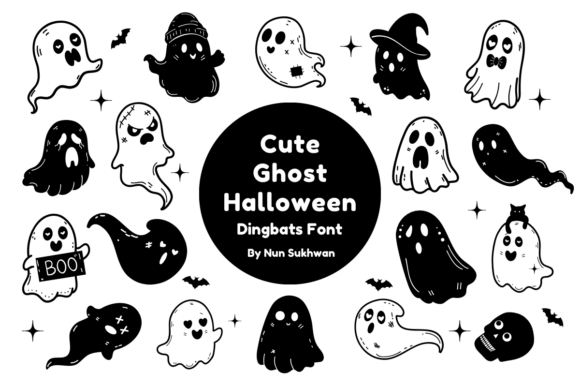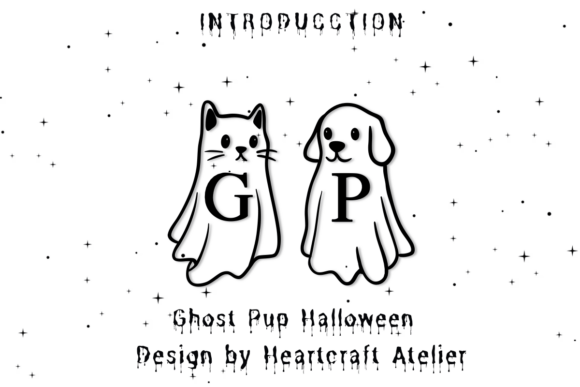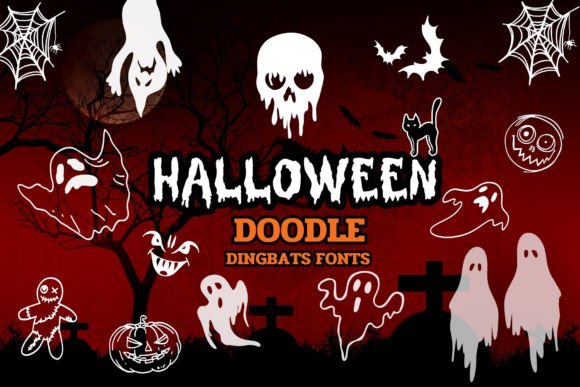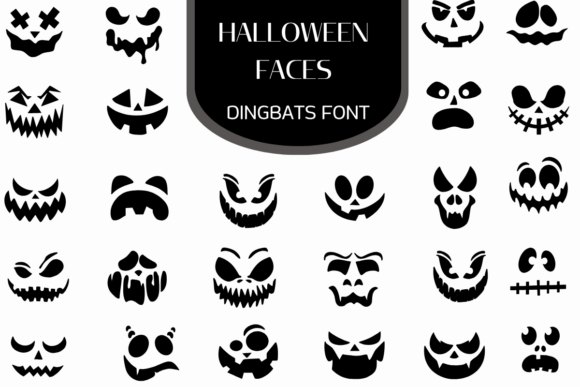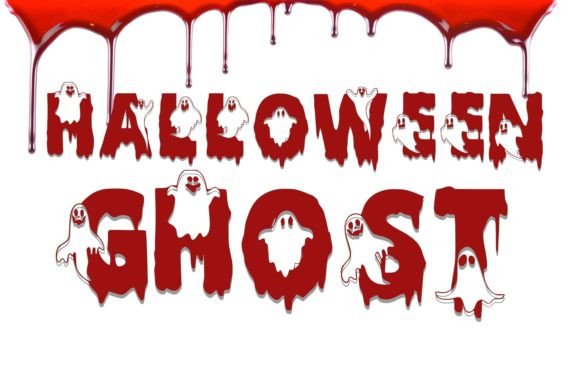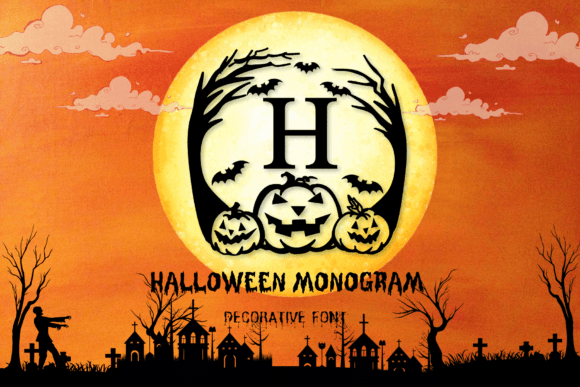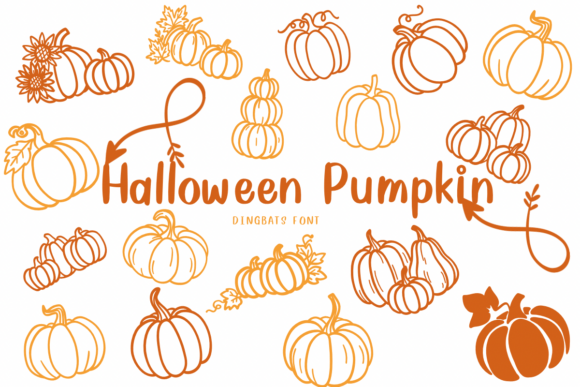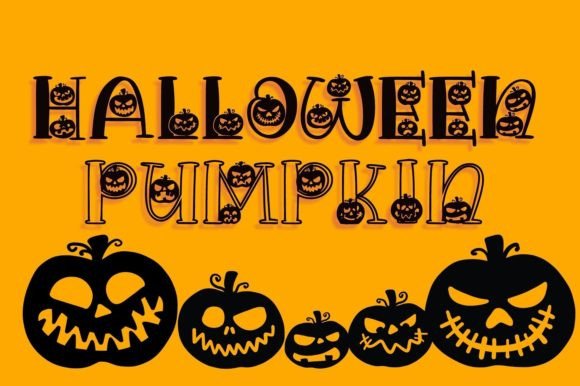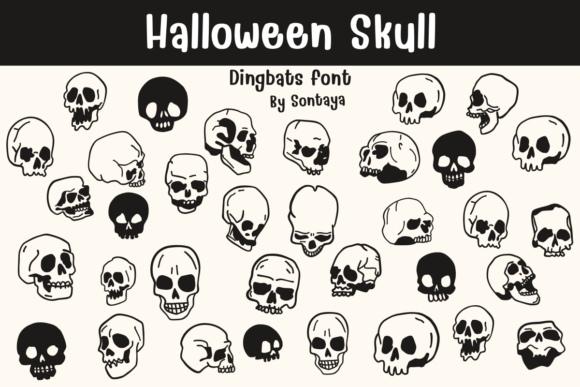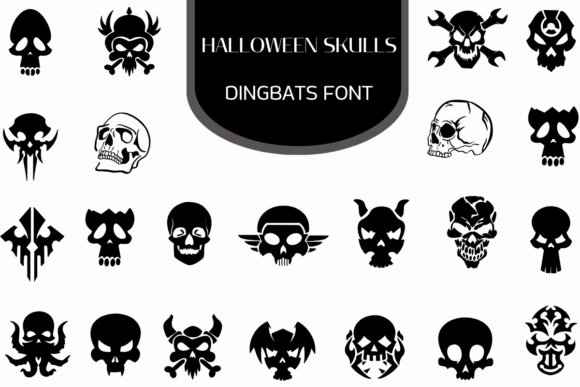
Halloween Fonts Alphabet Monogram and Dingbat Icon Sets
Halloween Fonts Alphabet: 13 Best Monogram & Dingbat Picks (2026)
A halloween fonts alphabet of icons and monograms solves a different problem than a headline font: instead of setting a mood with words, it gives you ready-made pumpkins, ghosts, bats, and skulls you can drop straight into a design without drawing a single illustration. Here are 13 Halloween monogram and dingbat fonts for crafters, teachers, and small shop owners who need quick, on-theme graphics.
Best Overall Halloween Monogram – hand-drawn pumpkins, bats, and ghosts
Best for Crafters Halloween Pumpkin (Dingbats) – sketched-style icon set
Best Bundle The Spooktacular Halloween Bundle Vol.01 – full handwritten collection
Most Playful Halloween Pumpkin (Faces) – a different pumpkin face per letter
Halloween Fonts Alphabet: Monogram Picks
This part of the Halloween fonts alphabet collection is built around initials and short words, so each decorative font doubles as a standalone graphic for cards, signs, and packaging.
Halloween Pumpkin (Dingbats) Halloween font
1. Halloween Pumpkin (Dingbats)
Best for: Party Invitations, Logos & Branding
A sketched-style dingbats set that enhances invitations, DIY crafts, decorations, and logos.
Halloween Ghost Halloween font
2. Halloween Ghost
Best for: Party Decor
A spooky, fun decorative font with drippy characters decorated with cute little ghosts.
Halloween Monogram Halloween font
3. Halloween Monogram
Best for: Party Invitations
A monogram-style typeface with hand-drawn pumpkins, bats, and tree ghosts for party invitations and crafts.
Halloween Faces (Dingbats) Halloween font
4. Halloween Faces (Dingbats)
Best for: Cards & Stationery
A dingbats set handy for banners, cards, shirts, and social posts that need quick Halloween icons.
Halloween Skulls (Dingbats) Halloween font
5. Halloween Skulls (Dingbats)
Best for: Cards & Stationery
A skull-themed dingbats set for banners, cards, shirts, and stationery projects.
Halloween Fonts Alphabet: Dingbat & Icon Picks
This half of the Halloween fonts alphabet list swaps letters for icons entirely, so typing a few keystrokes drops in a bat, ghost, or pumpkin exactly where you need one.
Cute Ghost Halloween (Dingbats) Halloween font
6. Cute Ghost Halloween (Dingbats)
Best for: Party Invitations, Party Decor
A sketch-style ghost dingbats font for invitations, DIY crafts, and decorations.
Scary Halloween 2022 Halloween font
7. Scary Halloween 2022
Best for: Party Decor
A decorative typeface with spooktacular graphics built into alphabetic and alphanumeric characters.
Ghost Pup Halloween font
8. Ghost Pup Halloween
Best for: Cards & Stationery, Party Decor
A decorative font suited to notes, diaries, greeting cards, and playful Halloween banners.
Halloween Pumpkin (Faces) Halloween font
9. Halloween Pumpkin (Faces)
Best for: Party Decor
A decorative font with different pumpkin faces in each alphabet position, great for October designs.
Halloween Skull (Dingbats) Halloween font
10. Halloween Skull (Dingbats)
Best for: Halloween Decor
A skull-doodle dingbats set built for Procreate and Affinity workflows as well as standard design software.
The Spooktacular Halloween Bundle Vol.01 Halloween font
11. The Spooktacular Halloween Bundle Vol.01
Best for: Stickers & Decals
A hauntingly adorable handwritten font collection for crafts, party invites, and spooky stickers.
Halloween Doodle (Dingbats) Halloween font
12. Halloween Doodle (Dingbats)
Best for: Party Invitations, Cards & Stationery
A dingbats set of bats, witches’ hats, pumpkins, and ghosts for invitations, decorations, and cards.
Spooky Halloween (Decorative Diary) Halloween font
13. Spooky Halloween (Decorative Diary)
Best for: Cards & Stationery, Party Decor
A decorative font suited to notes, diaries, greeting cards, and casual social graphics.
FAQ
What is a Halloween fonts alphabet dingbat set exactly?
It’s a font where each key produces a themed icon instead of a letter, effectively turning your keyboard into a small clip-art library you can drop straight into a design.
What’s the difference between a monogram font and a dingbat font?
A monogram font is still a full alphabet, just decorated, so you can type initials or short words. A dingbats font replaces letters with standalone icons like bats, ghosts, or pumpkins instead of readable text.
Are Halloween monogram fonts good for Cricut projects?